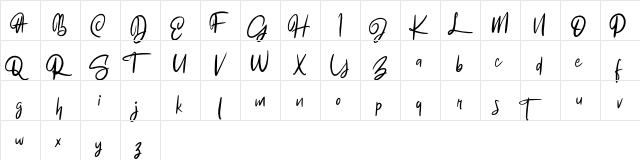
The Akrage FREE Regular
| Designer | Vunira Design |
The Akrage FREE is a composed and adaptable typeface that performs quietly and consistently across a wide range of design contexts.